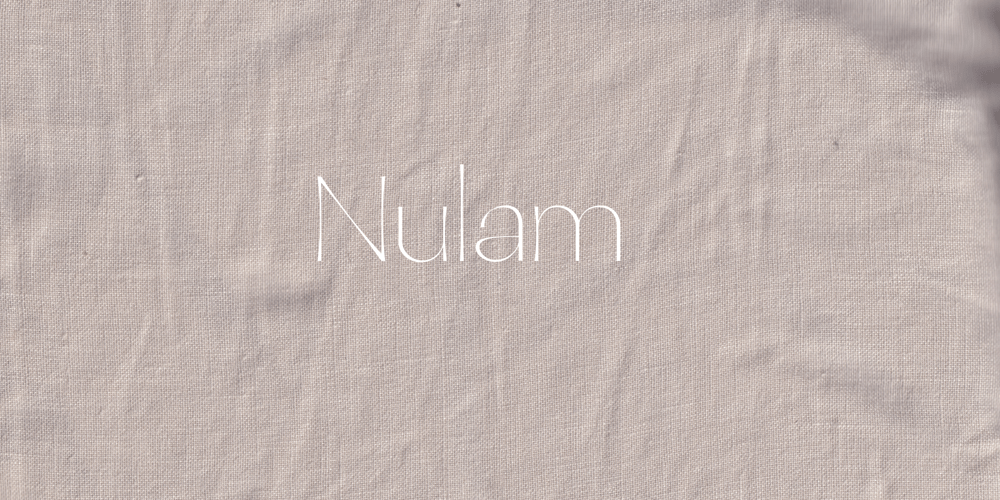
Nulam Font Family was designed by Jack Gardener and published by Blonde Typefoundry. Nulam contains 1 styles and family package options. Nulram is the first typeface to be released by Blonde Typefoundry. Focusing on the relationship between contrast and balance it proved to be an interesting experience to create.This sans-serif display typeface is perfect for anyone looking for a modern typeface that looks clean and sharp, but also has the traditional aspects of a well drawn typeface.